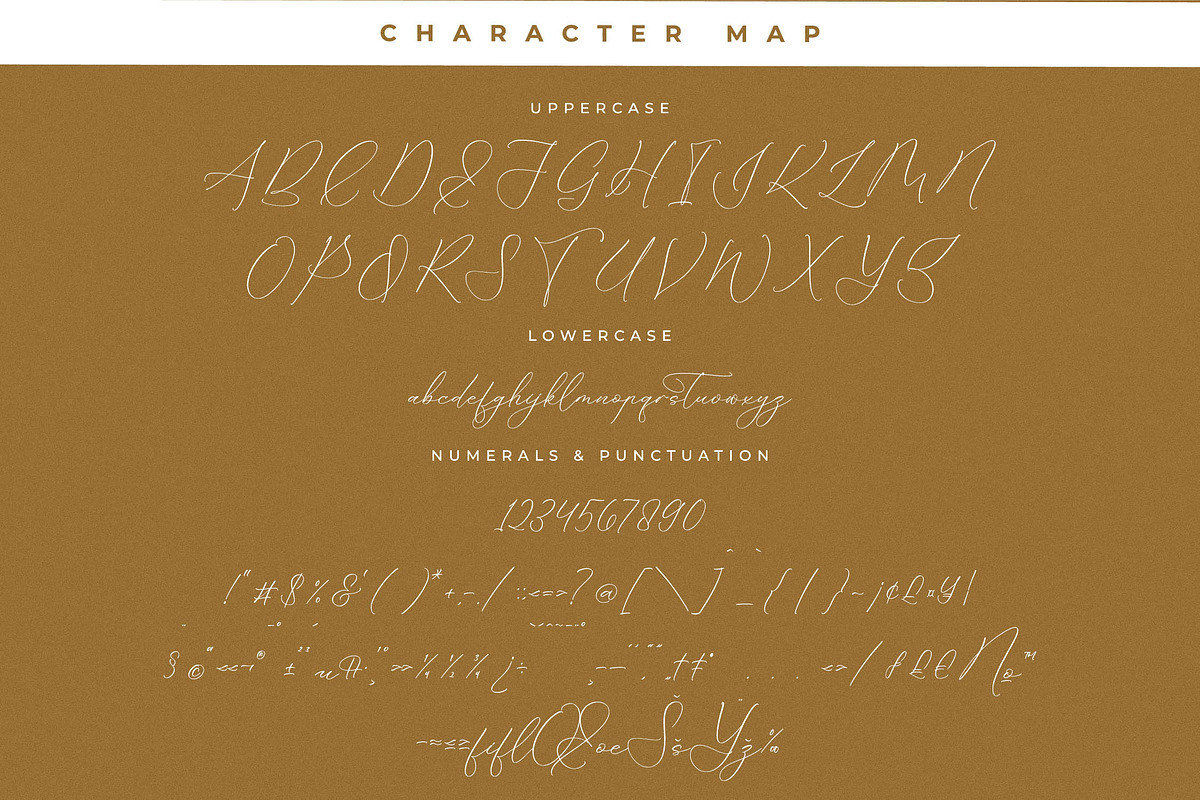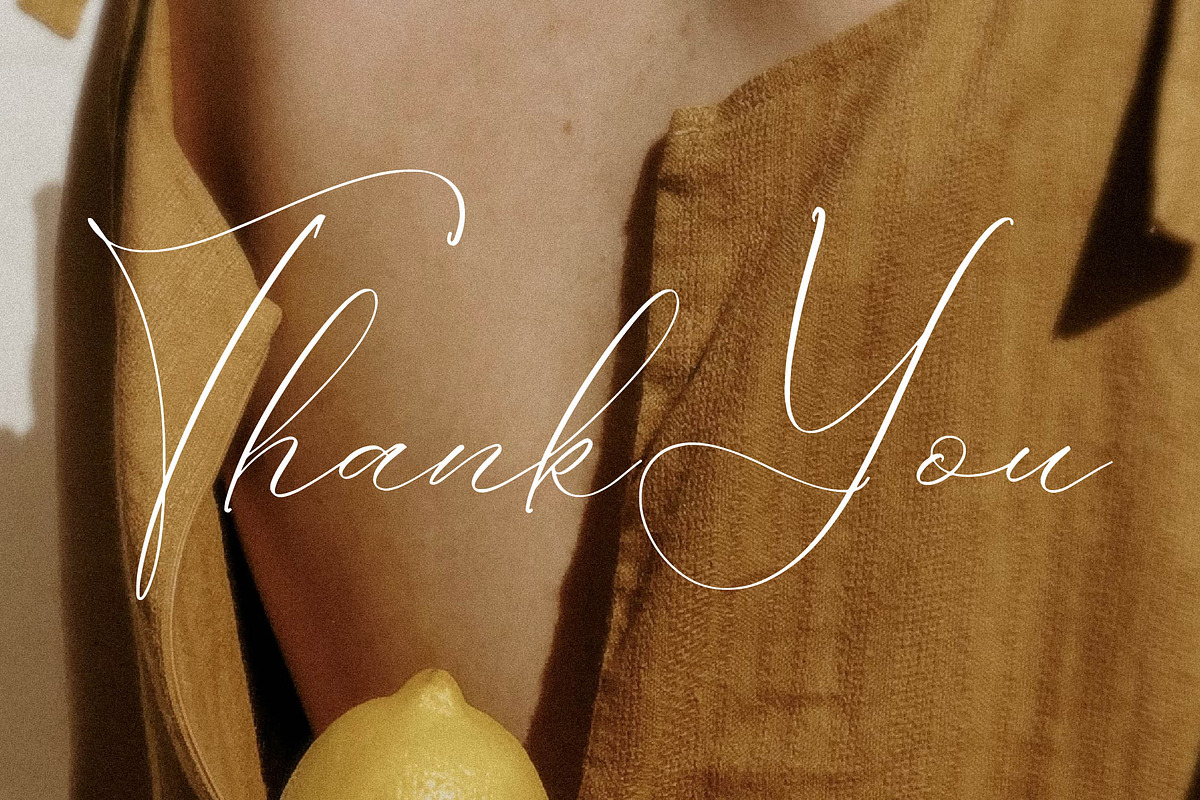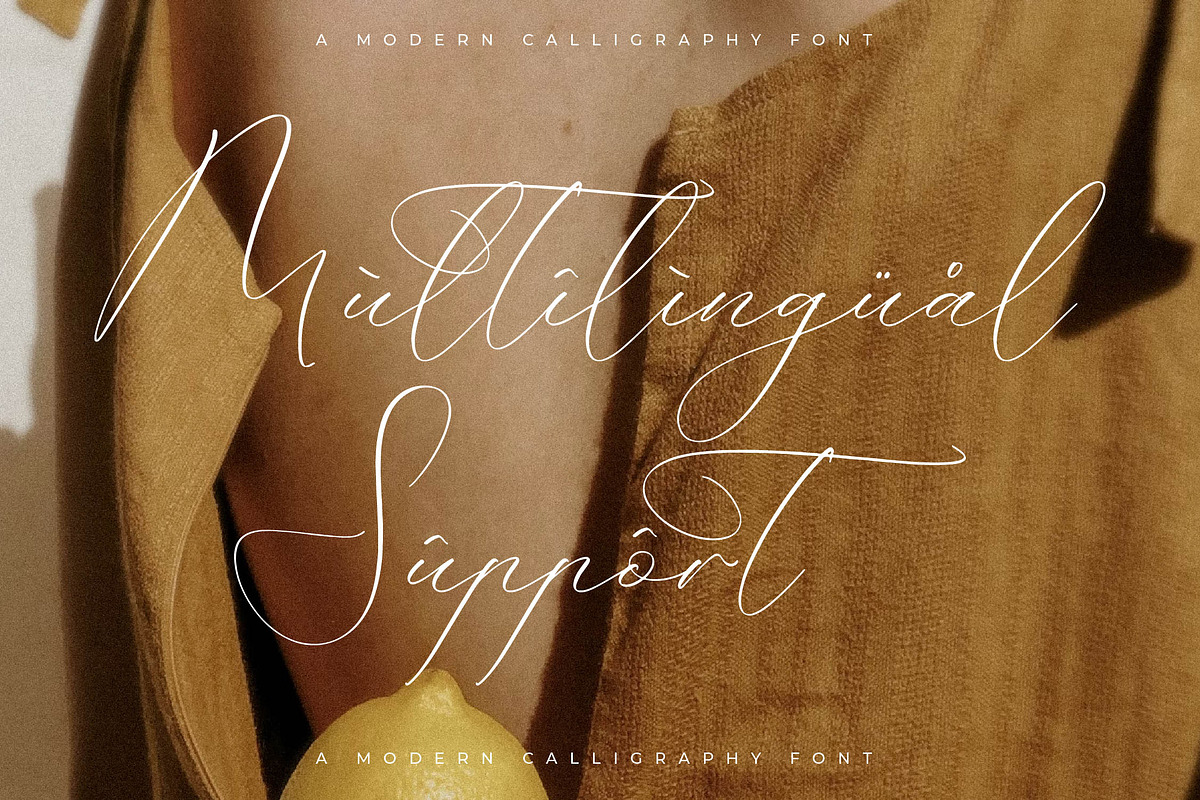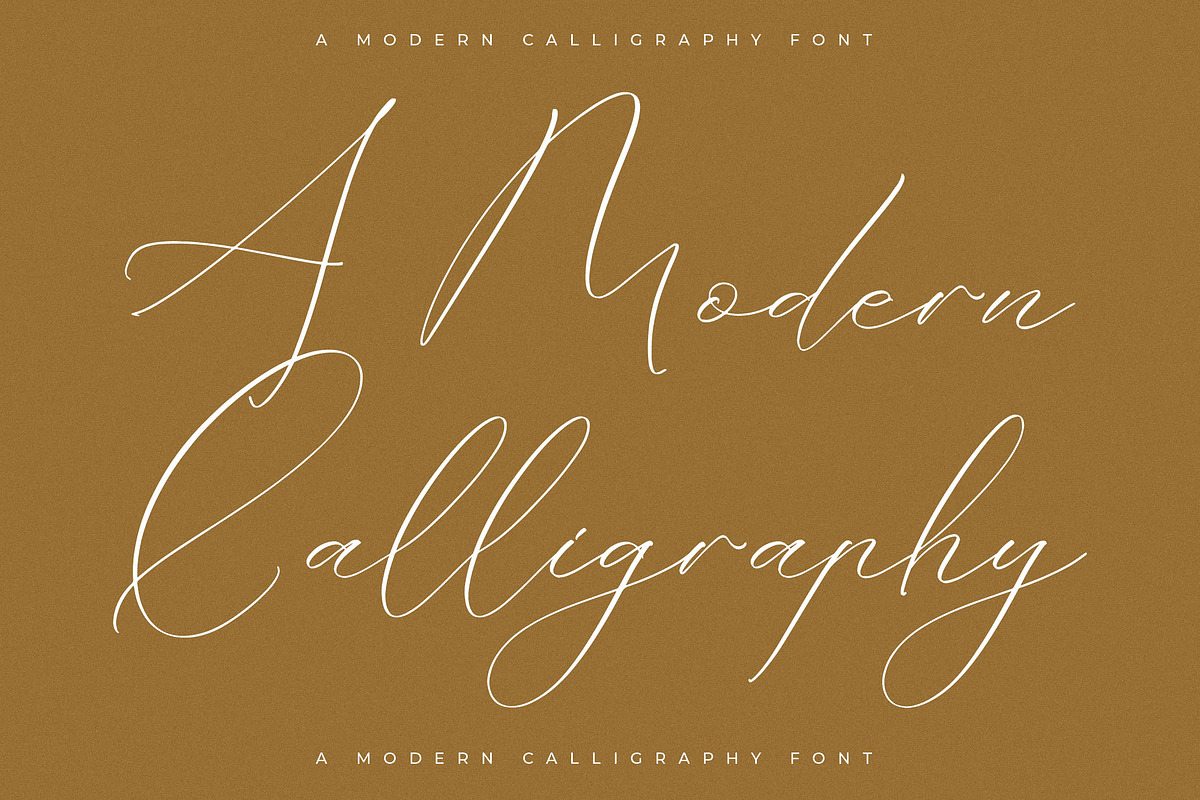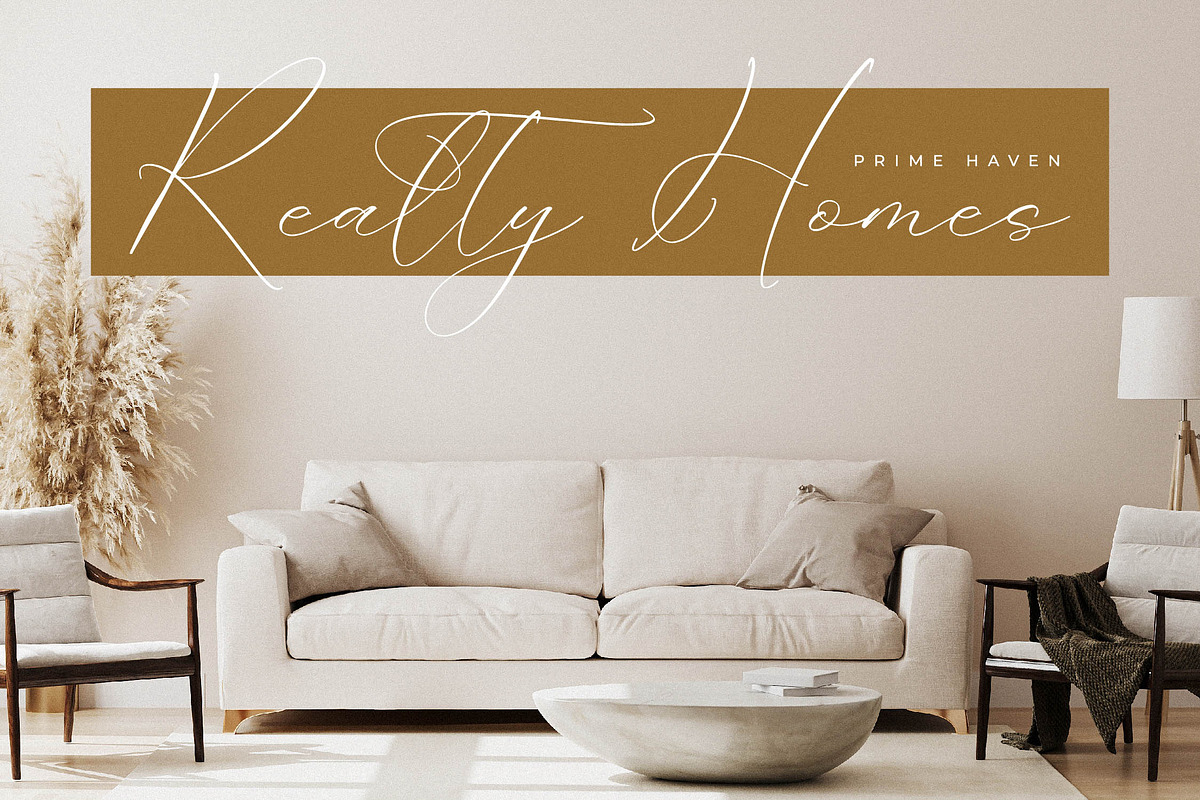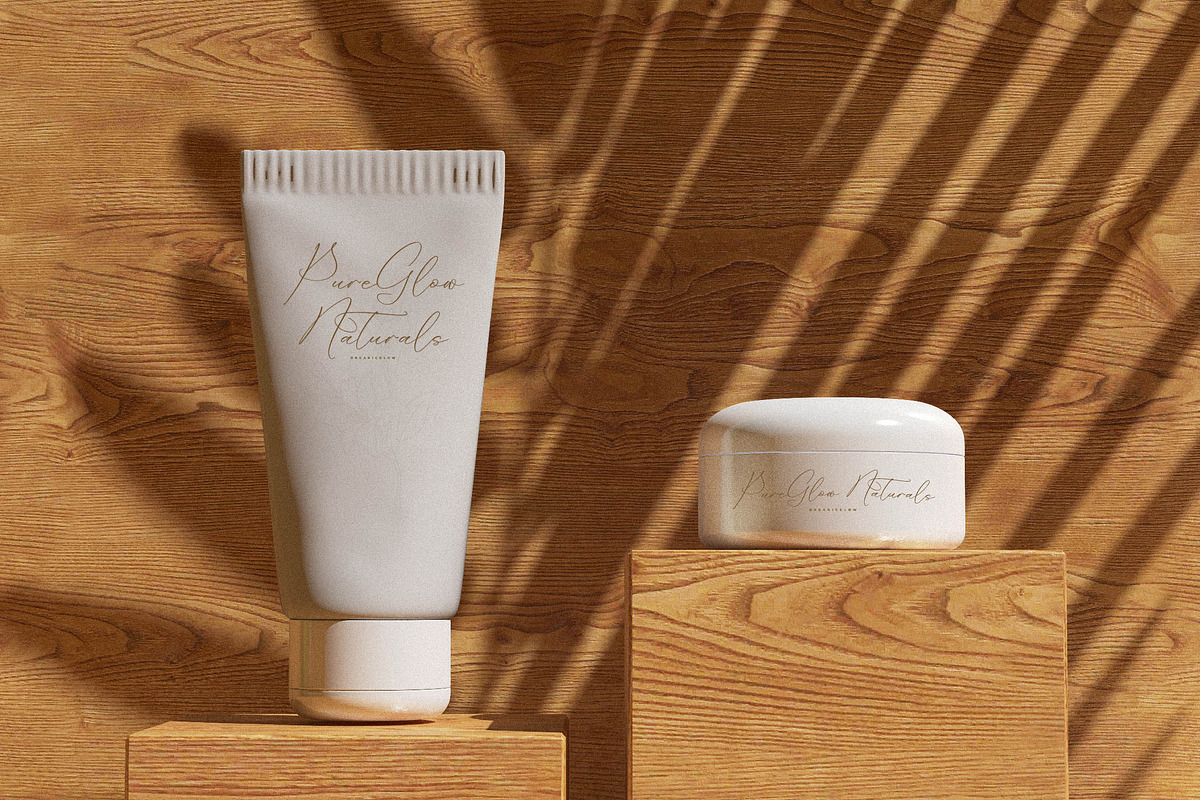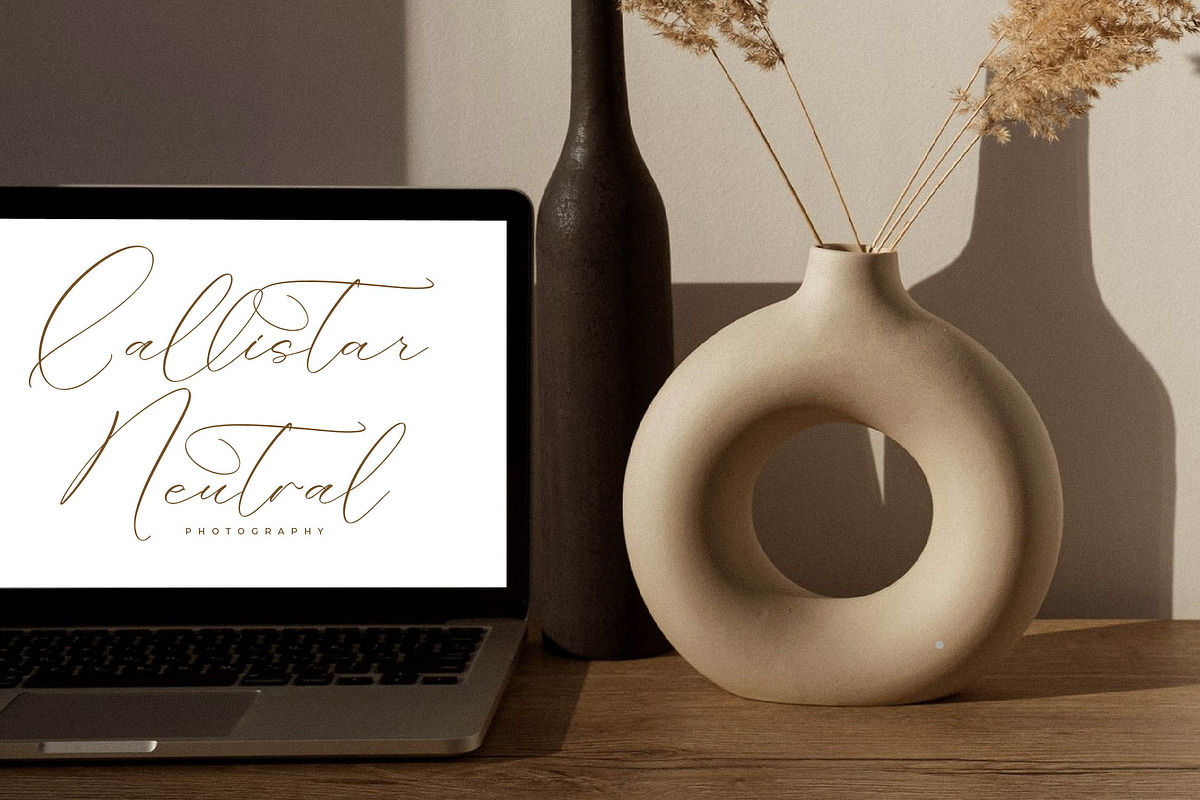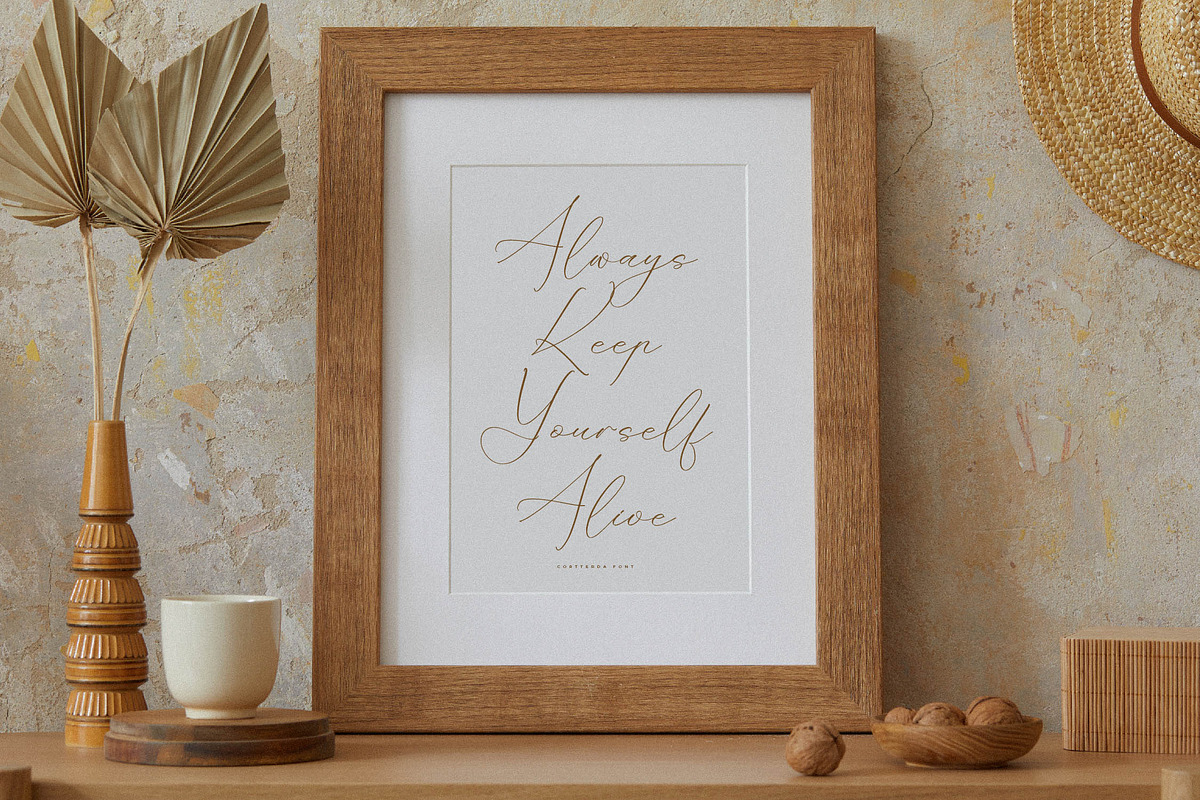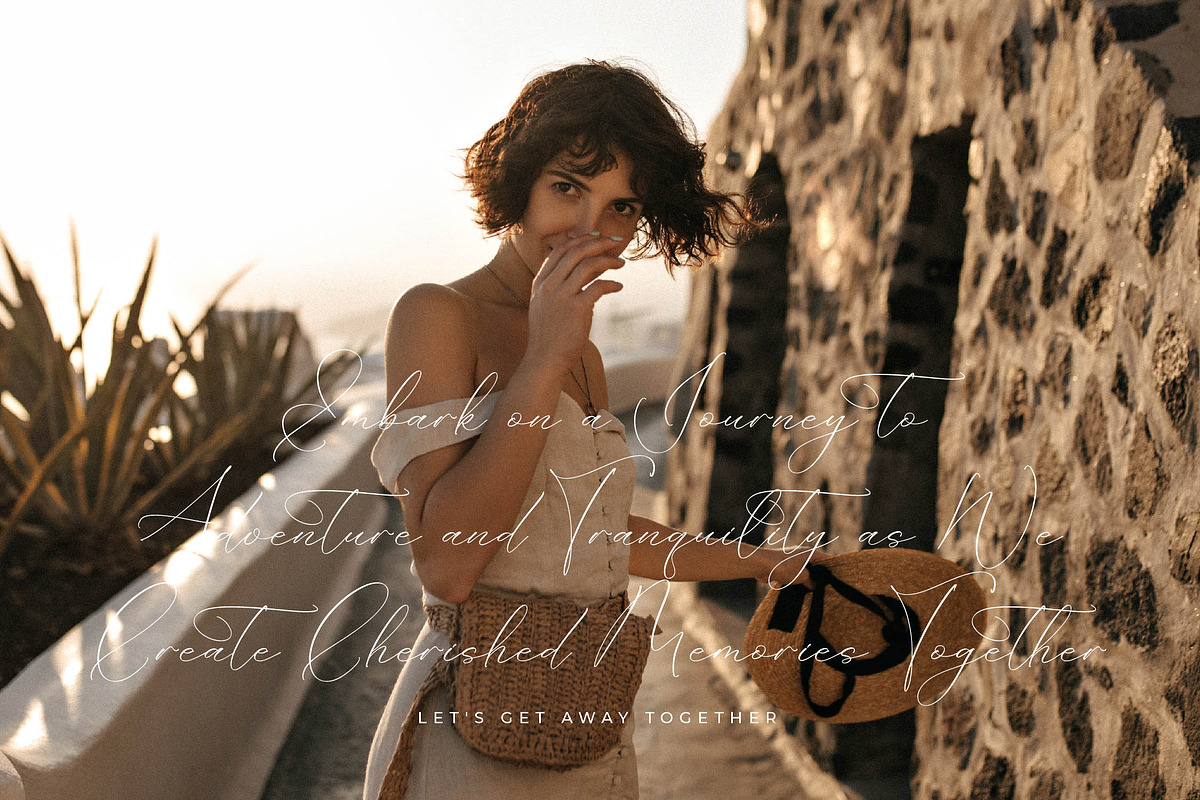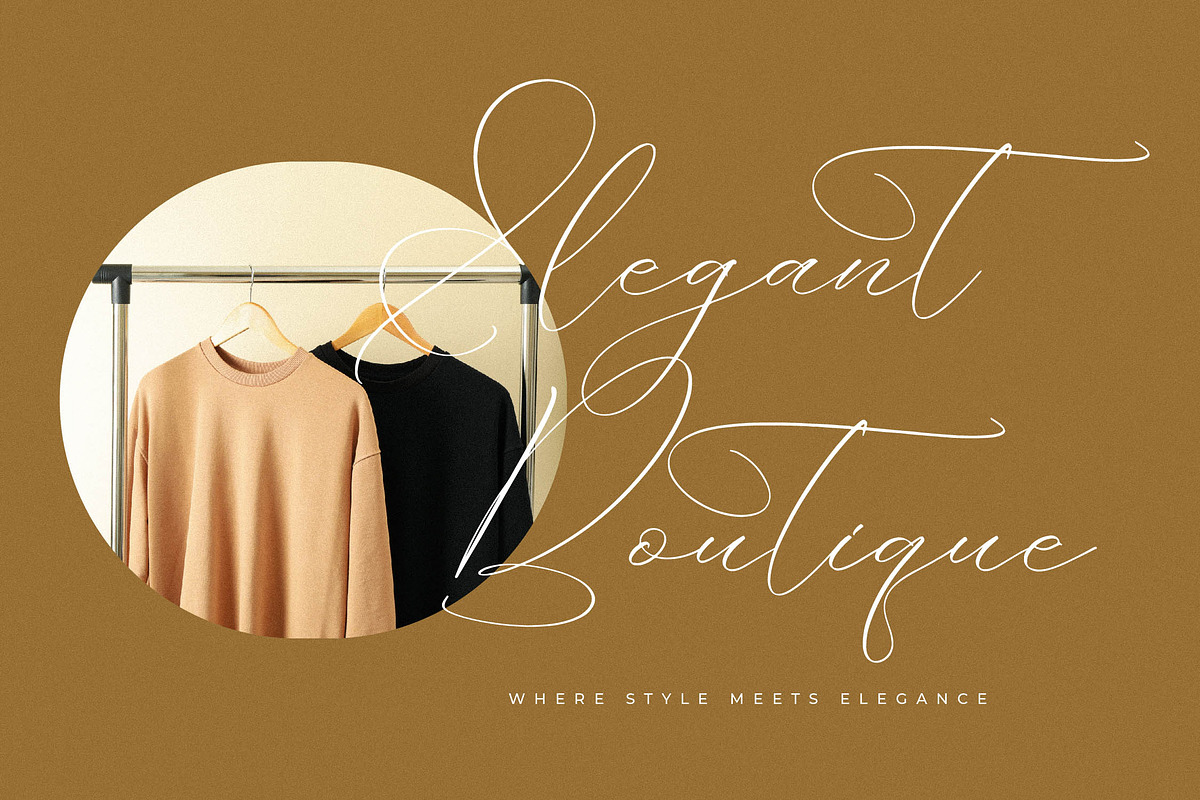
Portterda Modern Calligraphy Font
Proudly present Portterda – Modern Calligraphy Font , created by Storytype, A luxury script that has own unique style & modern look. This typeface is perfect for an elegant & luxury logo, book or movie title design, fashion brand, magazine, clothes, lettering, quotes, and so much more.